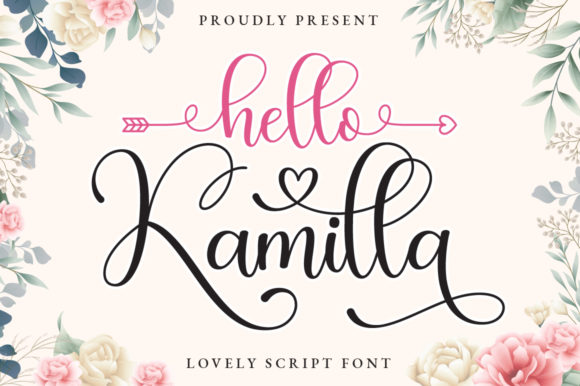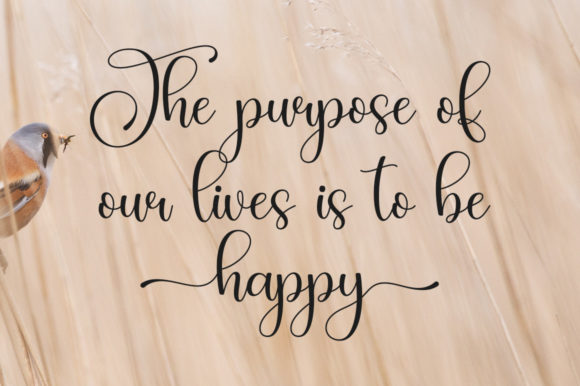
Hello Kamilla Font
Hello Kamilla feels equally charming and elegant. It looks stunning on wedding invitations, thank you cards, quotes, greeting cards, logos, business cards and every other design which needs a customized touch.